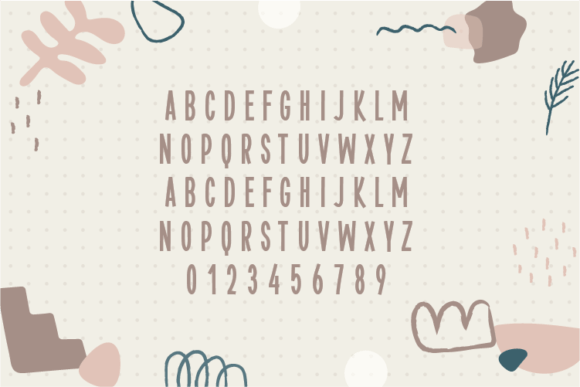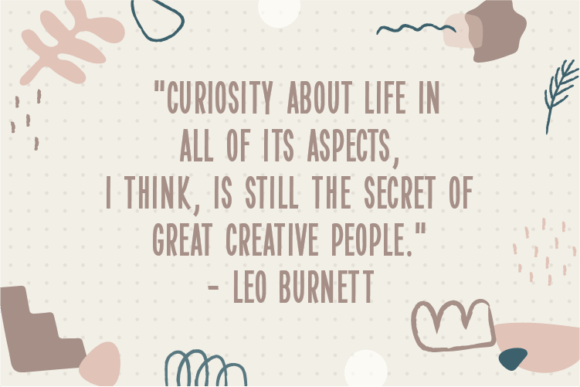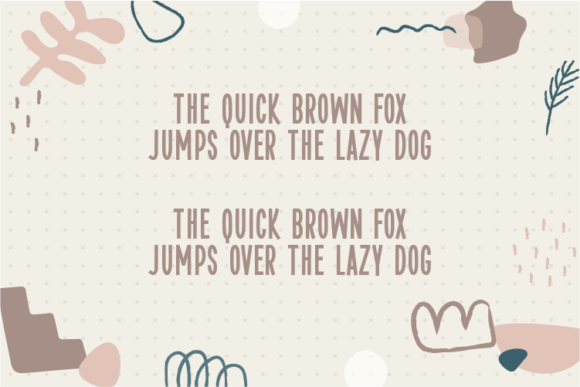
A Dream Come True Font: Bringing Your Creative Vision to Life
| 👤 Author | Hanna Bie |
For designers, finding the perfect font can be the key to unlocking that creative spark. That’s where A Dream Come True Font comes in – a natural and friendly handwritten font that’s as trendy as it is stylish. This beautiful font is designed to elevate each of your creations, adding a touch of warmth and personality to your designs. Whether you’re a seasoned pro or just starting out, A Dream Come True Font is a valuable addition to any designer’s toolkit.
A Dream Come True Font Key Features
- Font Family: A Dream Come True Font is a sans-serif font family with a modern and elegant design.
- Font Size: The font family comes in 6 different font weights, ranging from Light (100) to Bold (900) for versatility in typography.
- Unique Characteristics: The font features a unique blend of geometric and organic shapes, giving it a distinctive and modern look.
- Language Support: Supports multiple languages, including Latin, Cyrillic, and Greek scripts, making it suitable for international design projects.
A Dream Come True Font Review
Overall, I think this font has a lot of potential, but it also has some limitations that prevent it from reaching its full potential. ✨ One of the things that I like about this font is its unique and playful style, which makes it perfect for creative projects like children’s books or advertisements.
- ✨ Unique and playful style that’s perfect for creative projects
- ✨ Supports a wide range of languages, making it a great option for international projects
- ✨ Comes with a variety of font weights and styles, giving you a lot of flexibility
However, there are a few things that I’m not too fond of. ⚠️ The font is not as legible as I would like, especially at smaller font sizes. This can make it difficult to read, especially for people with vision impairments.
- ⚠️ Limited legibility, especially at smaller font sizes
- ⚠️ May not be suitable for formal or professional projects
- ⚠️ Some characters may not render correctly in certain fonts or browsers
Overall, I think this font is a good option for creative projects where legibility is not a top priority. However, if you’re looking for a font that’s perfect for formal or professional projects, you may want to consider other options.
The A Dream Come True Font is perfect for:
- Creating whimsical and playful designs.
- Adding a touch of elegance to your typography.
- Designing children’s book illustrations.
To get the most out of the A Dream Come True Font, try:
- Pairing it with bold and playful colors.
- Experimenting with different font sizes and styles.
- Using it in combination with other creative fonts.